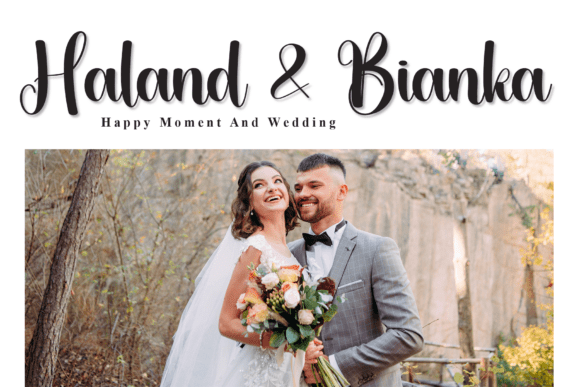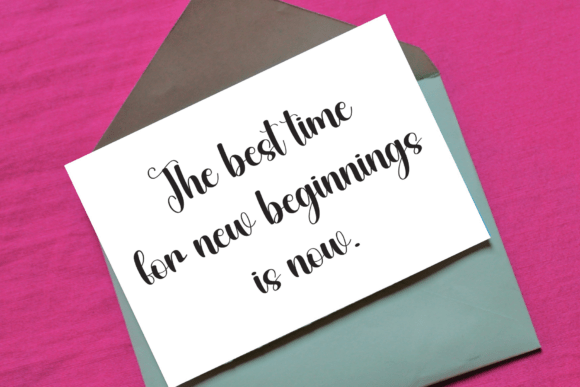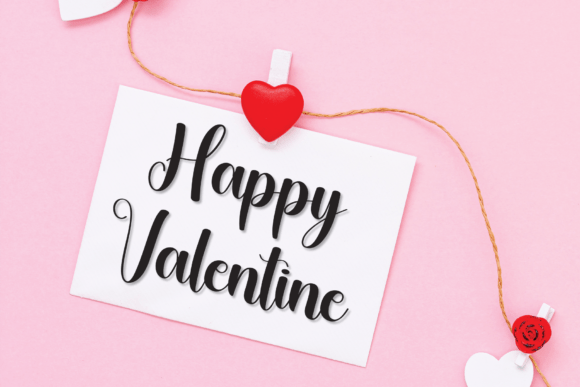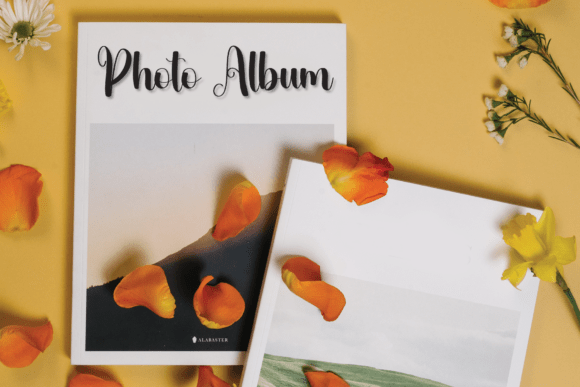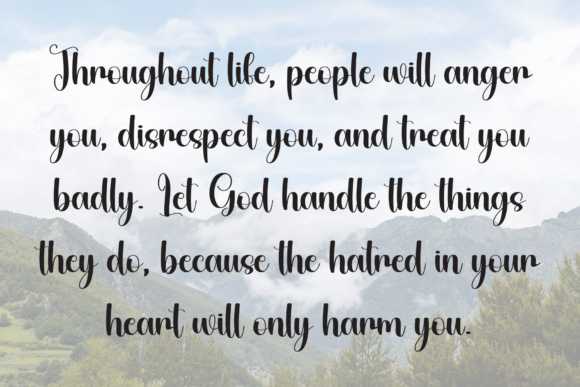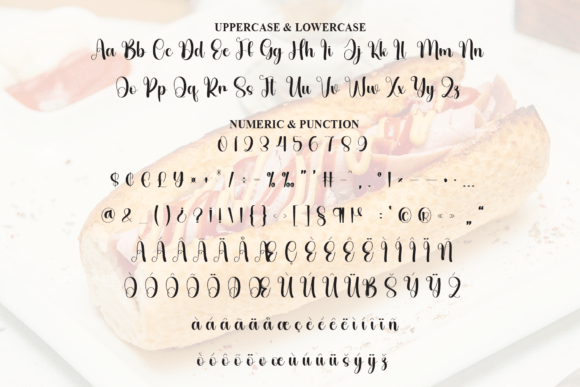
Discover the Delight of Hotdog Font
Have you ever been stuck in a creative rut, searching for that perfect font to bring your design to life? It’s a feeling we’ve all experienced at some point, but what if we told you that the solution is just a click away? Imagine the excitement of browsing through a vast library of fonts, only to stumble upon the one that makes your heart skip a beat – a charming handwritten display font that exudes elegance and whimsy.
Meet the Hotdog Font, a delightful addition to your design arsenal that promises to add a dash of sweetness to your projects. Perfect for wedding invitations, cards, or any design that needs a touch of playfulness, this font is sure to inject a dose of joy and personality into your creations. Whether you’re a seasoned designer or just starting out, the Hotdog Font is an invaluable asset that will take your designs to the next level.
Key Features of Hotdog Font
- Font Family: Hotdog Font comes in two font families: Regular and Bold.
- Character Set: The font includes a wide range of characters, including uppercase and lowercase letters, numbers, and special characters.
- Unique Characteristics: The Hotdog Font features a playful, cursive design with a distinctive hot dog-inspired twist, making it perfect for adding a fun touch to food-related branding, packaging, and advertising.
Hotdog Font Review
I recently had the chance to work with the Hotdog Font, and I must say it’s a unique addition to any design project. ✨ The font’s playful and casual vibe makes it perfect for food-related branding, amusement parks, or even a quirky blog.
Here are some things that work well with the Hotdog Font:
- It’s highly customizable, allowing you to adjust the thickness and style to suit your design needs.
- The font’s bold lines make it stand out on both digital and print materials.
- It’s available in a range of weights and styles, ensuring it’s suitable for various design applications.
However, I did encounter a few limitations:
- The font may not be ideal for formal or professional branding, as it can come across as too casual or playful.
- The font’s bold lines can be distracting if used extensively throughout a design.
- It may not be compatible with all font sizes or resolutions, so be sure to test it thoroughly.
Overall, I think the Hotdog Font is a fun and creative addition to any design project, but it may not be suitable for all applications. ⚠️ With some careful consideration and experimentation, it can be a valuable asset in your design toolkit.
The Hotdog Font is ideal for casual, playful designs, such as:
- Social media graphics
- Food-related branding
- Children’s educational materials
- Summer-themed promotions
Remember to use the Hotdog Font in moderation, as it can be overwhelming in large quantities.